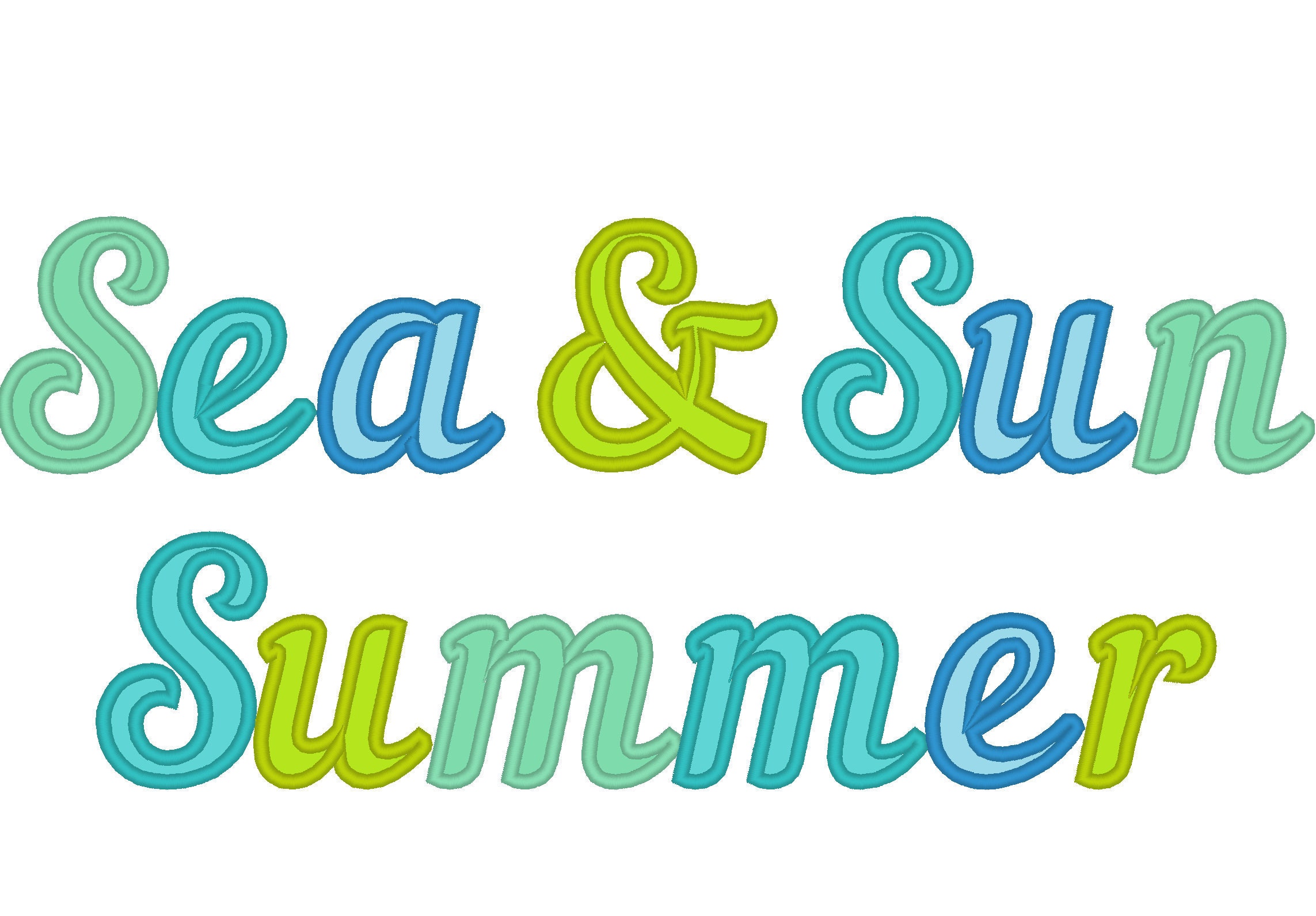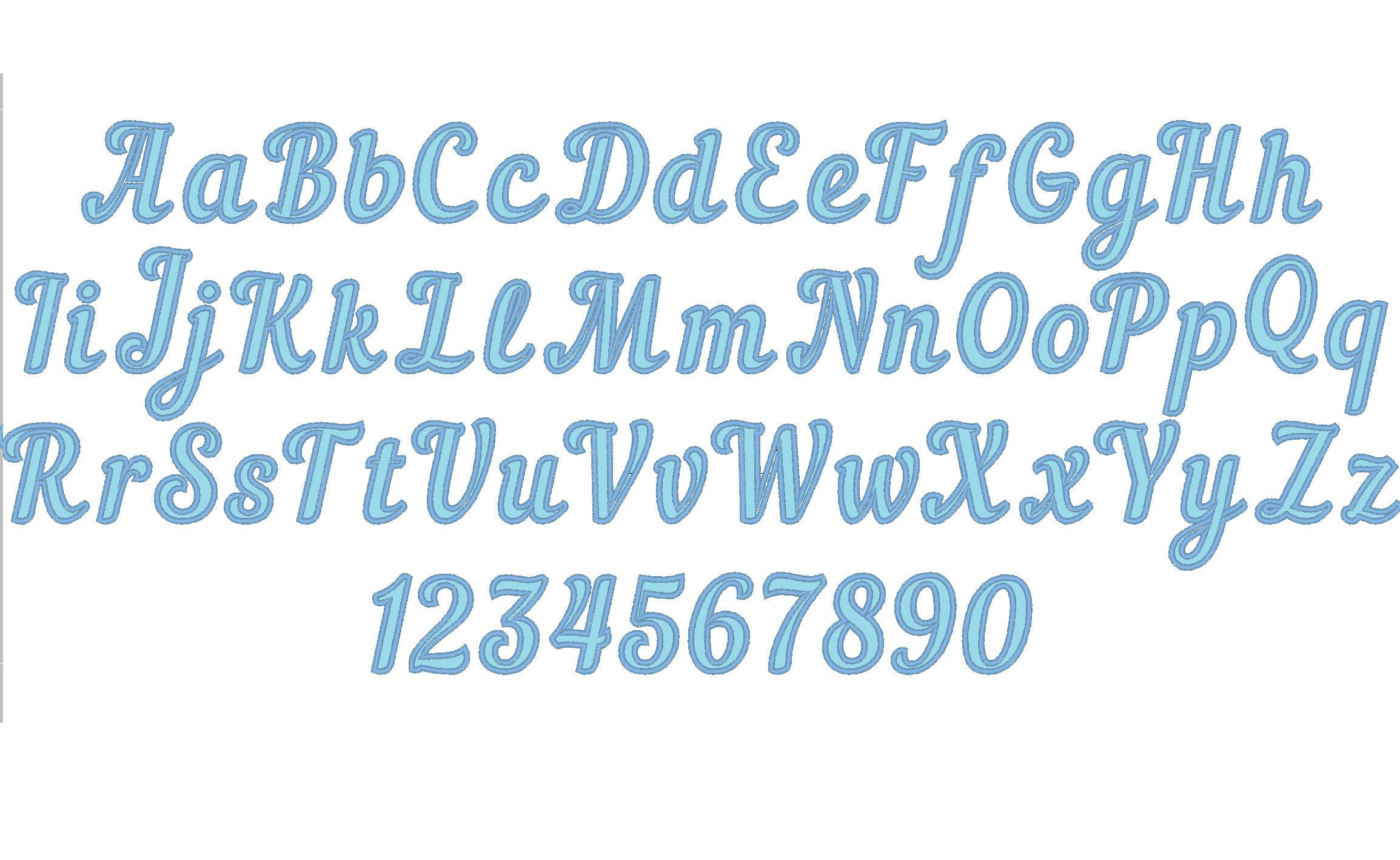
Simply cursive Font Applique monogram alphabet letters numbers machine embroidery designs in multiple sizes from 3.5 up to 5 inch and BX
Capital letters, letters and numbers
Has wide nice satin stitch
Ampersand, period and comma included